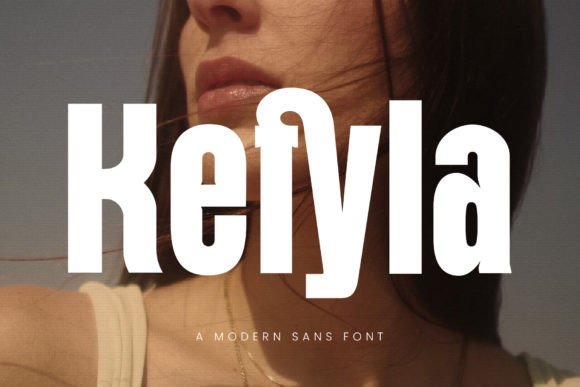
Introducing Kefyla, the sans serif font that embodies sleekness, modernity, and professional appeal. Designed to deliver clarity and sophistication, Kefyla's balanced and streamlined letterforms dance across the screen or paper, captivating your audience with their timeless simplicity.
Born from the creative vision of Graphicxell, Kefyla is the epitome of versatility, effortlessly adapting to diverse digital and print applications. Its clean lines and crisp curves exude elegance, lending a touch of refinement to any project. Whether you're crafting logos, brochures, website designs, or elegant presentations, Kefyla stands as your trusted companion, transforming your ideas into visually stunning creations.
With Kefyla as your font of choice, you unlock a world of design possibilities. Its innate readability ensures effortless communication, while its stylish aesthetics elevate your projects above the ordinary. Let Kefyla be your creative partner, guiding you towards designs that leave a lasting impression.